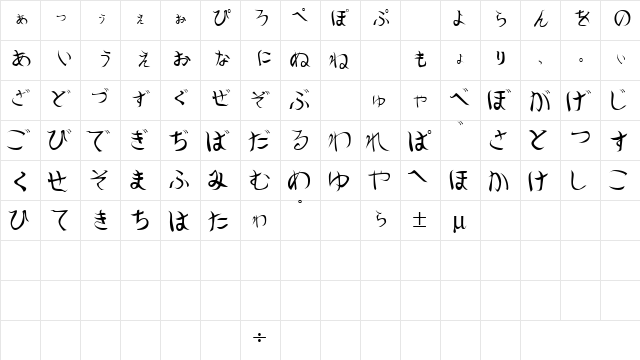
MisukiSSK Regular
Design Context for MisukiSSK Typeface
MisukiSSK is a composed and adaptable typeface that performs quietly and consistently across a wide range of design contexts.